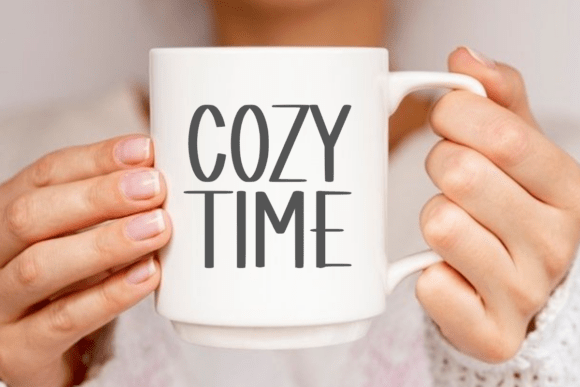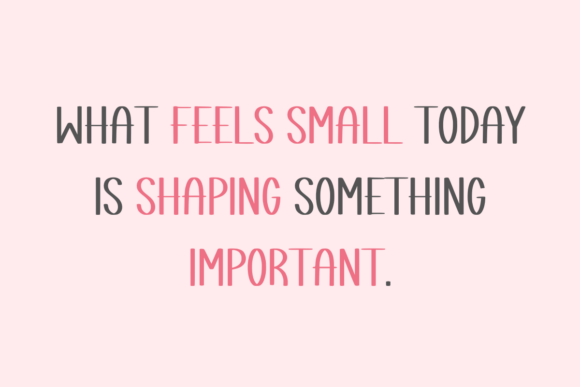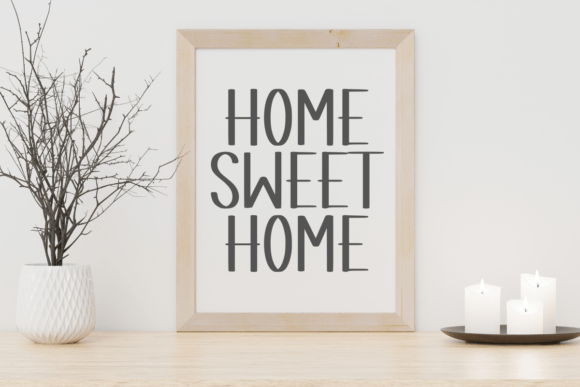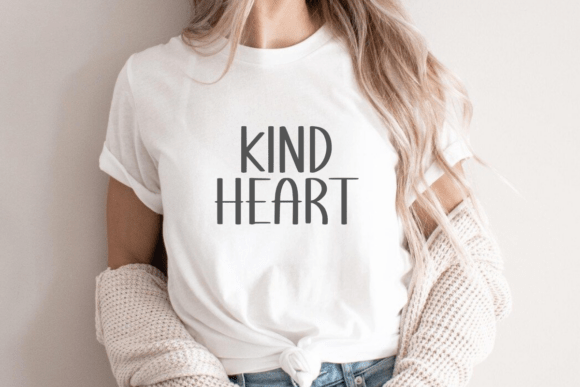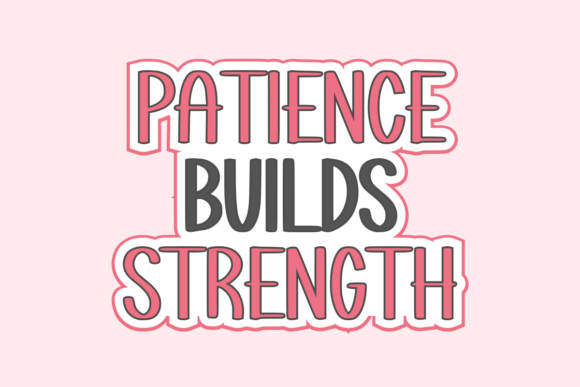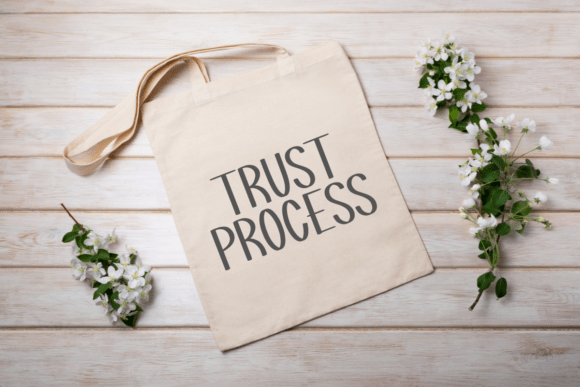
Introduction to Simple Cupid Font
Have you ever found yourself in the midst of a creative project, surrounded by scraps of paper, glue, and scissors, only to realize that the perfect font is missing? I know I have! That’s why I’m excited to introduce you to the Simple Cupid Font, a delightful sans serif handwriting font that’s sure to bring a touch of warmth and personality to your designs.
As a designer, you understand the importance of having high-quality design resources at your fingertips. The Simple Cupid Font is a valuable addition to any creative library, offering a soft, friendly, and natural look that’s perfect for a variety of projects, from craft supplies to DIY designs. With its transparent background and smooth curves, this font is a breeze to work with, and its free download makes it an even more enticing option for designers on a budget.
- Unique Hand-Drawn Design: The Simple Cupid Font features a charming, hand-drawn design that adds a touch of personality to any creative project.
- Perfect for Valentine’s Day and Romantic Themes: The Simple Cupid Font is particularly well-suited for use in Valentine’s Day and romantic-themed projects, thanks to its charming and playful design.
I recently stumbled upon the Simple Cupid Font, and I must say it’s a fantastic design resource for any creative project. The font is elegant, modern, and perfect for those looking to add a touch of sophistication to their designs.
- ✨ Elegant and modern design
- ⚠️ Not suitable for bold, eye-catching headings, as it’s a more subtle font
Overall, the Simple Cupid Font is a solid choice for designers looking for a high-quality, elegant font for their creative projects. Its transparent background and free download make it a great resource for designers of all levels.
The Simple Cupid Font is ideal for creating invitations, greeting cards, and other creative projects that require a touch of elegance and sophistication.